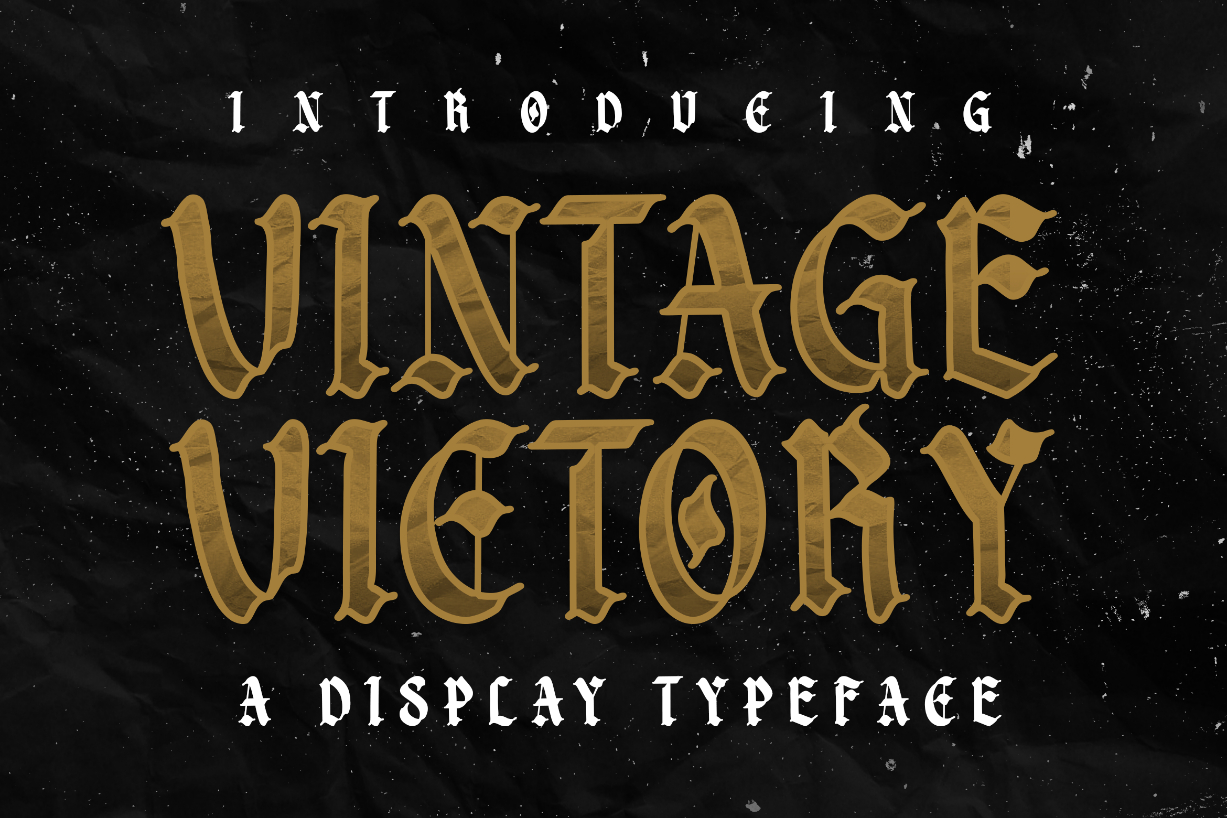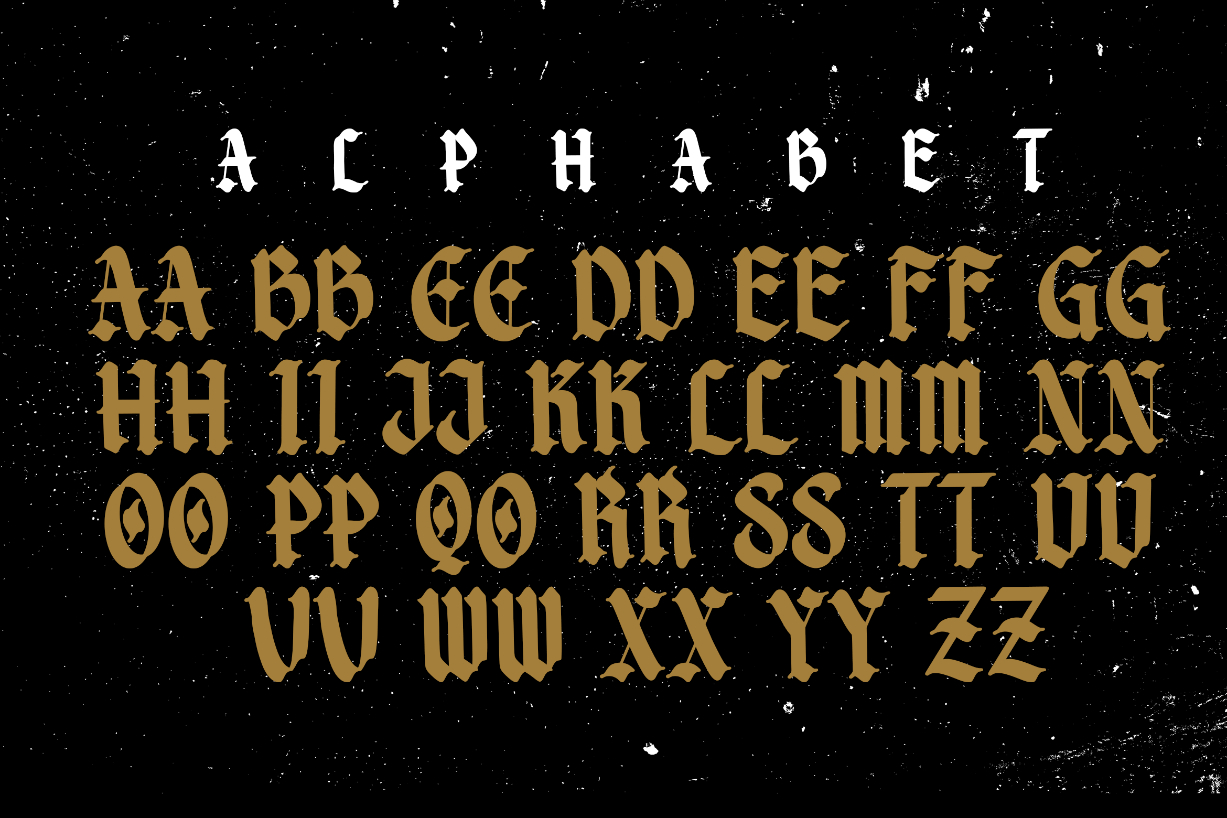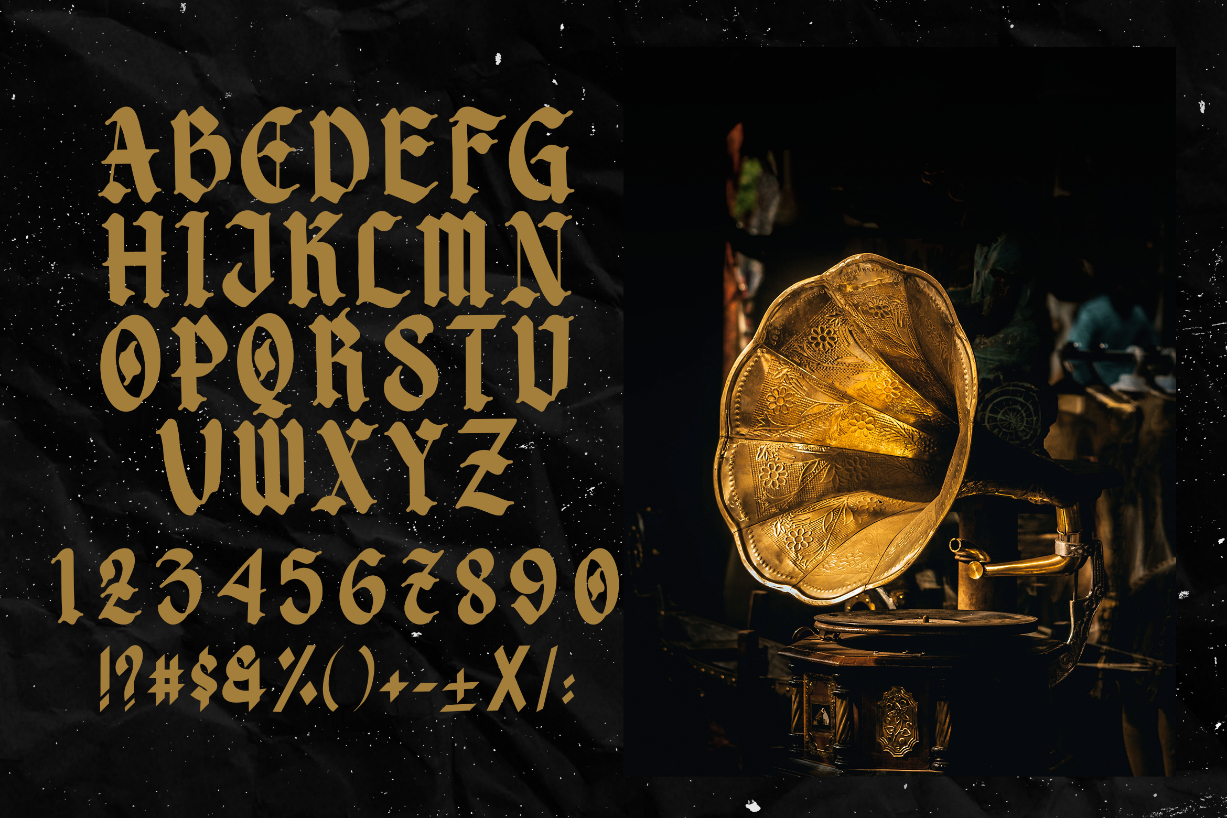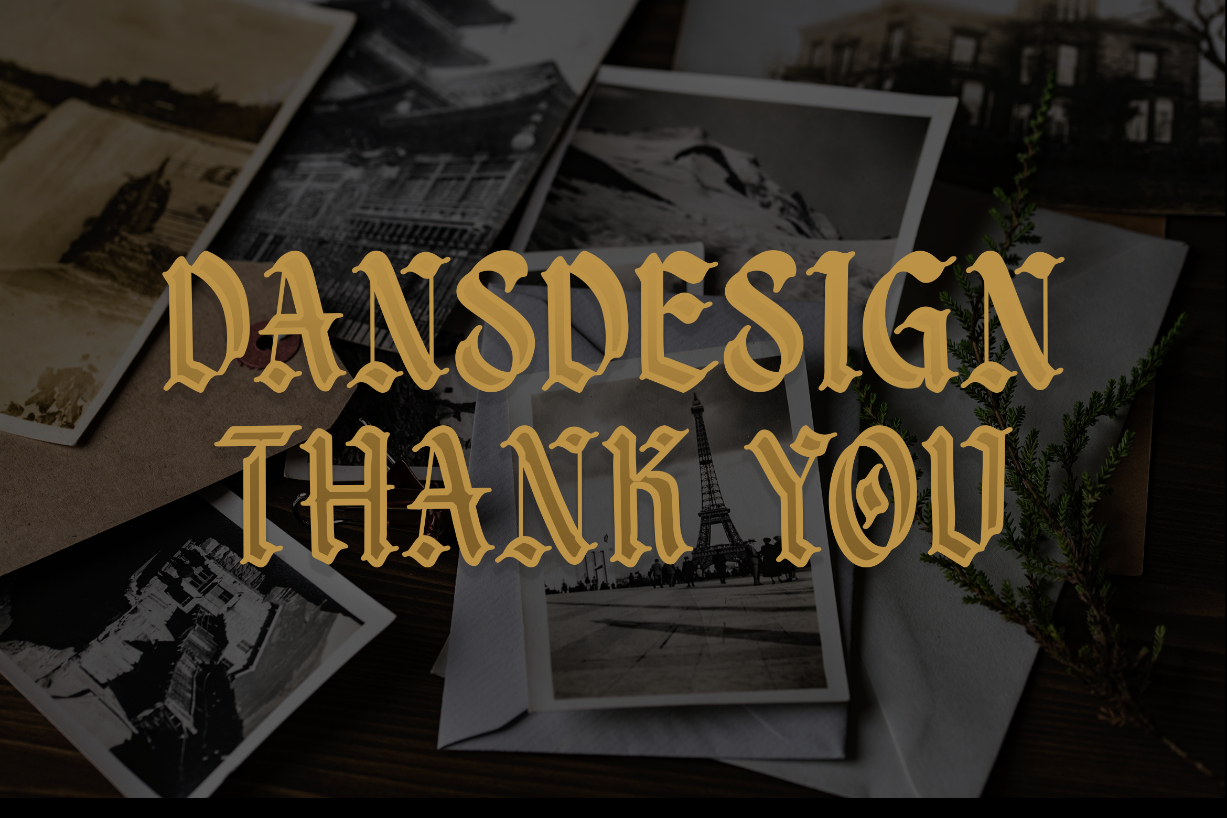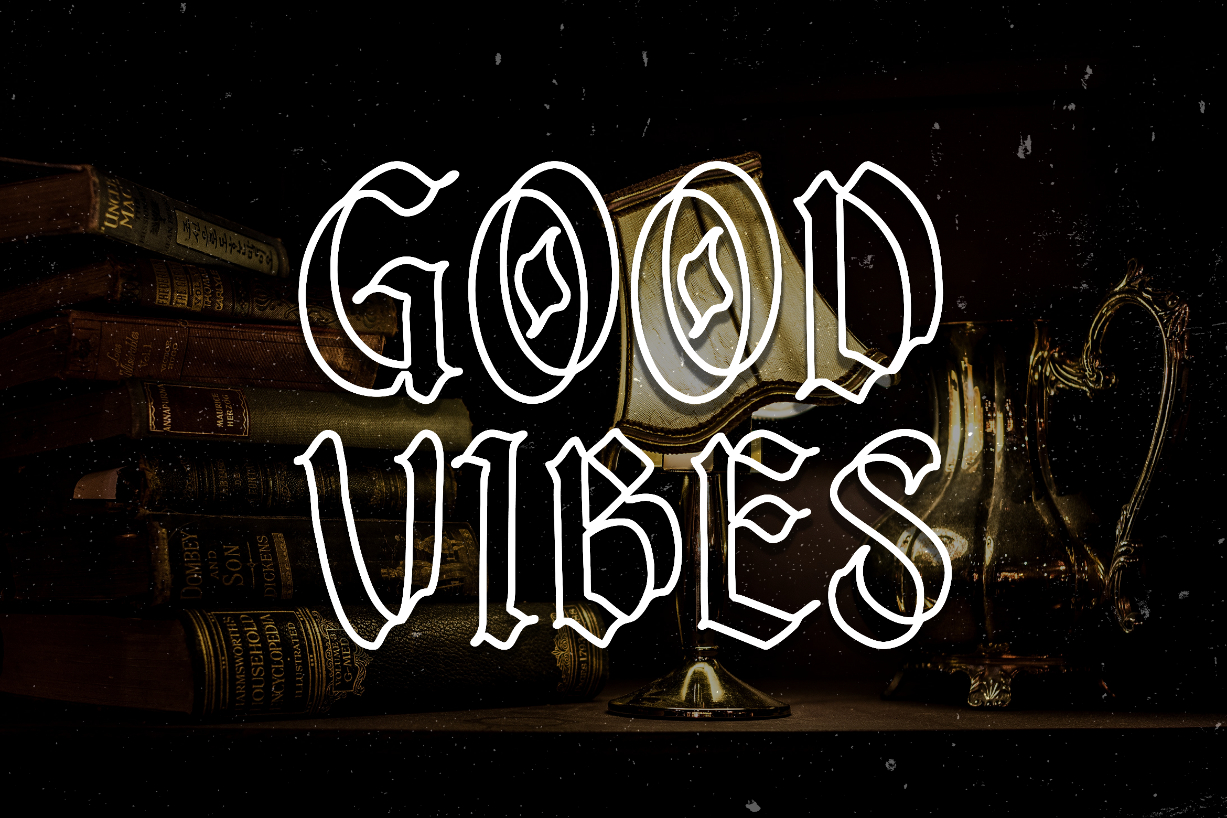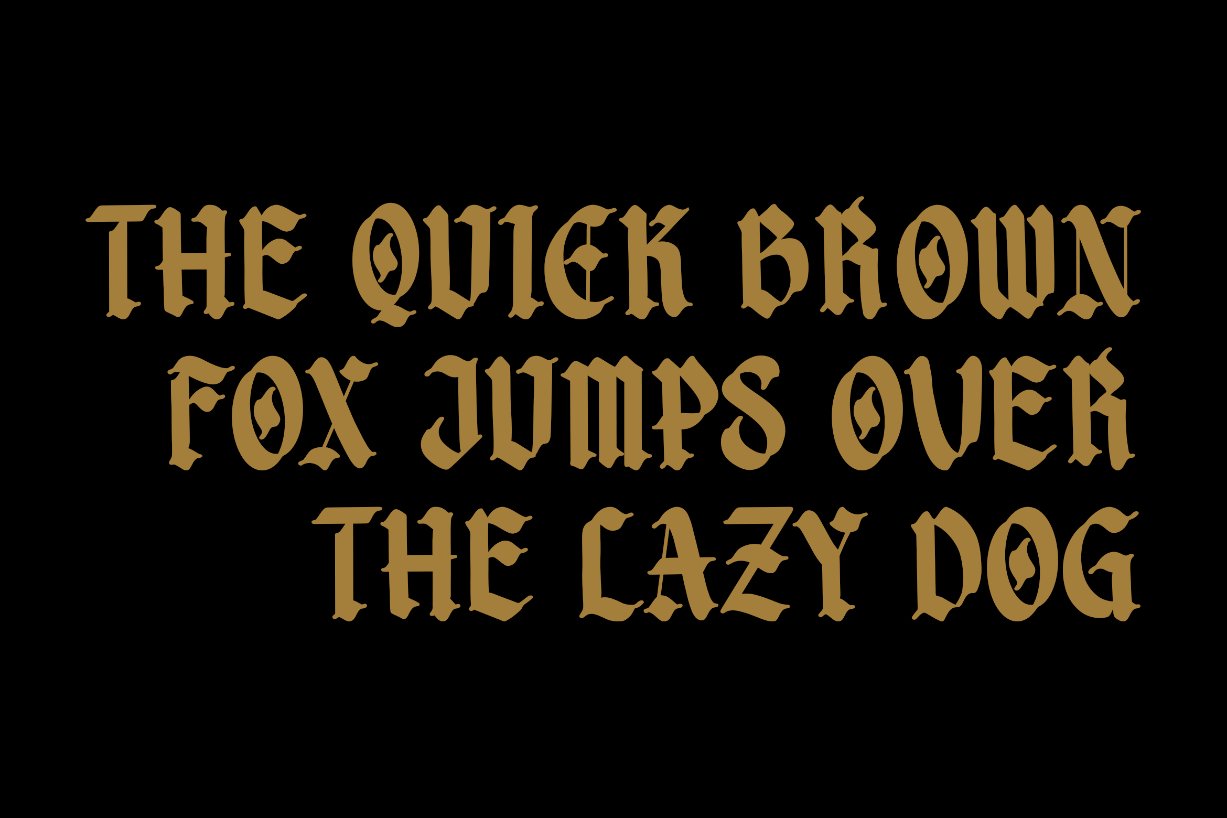
Vintage Victory Font
Vintage Victory is a gothic and unique blackletter font with an impressive look. Use it to add a special vintage look to your most creative projects!